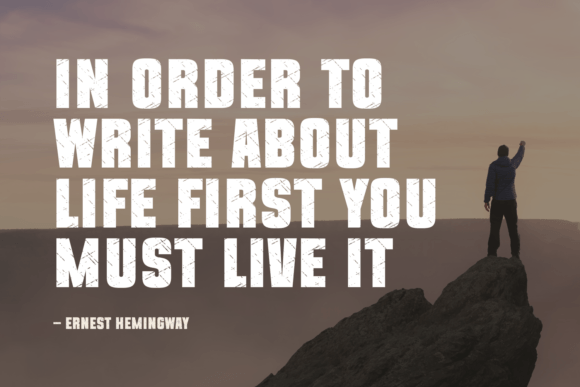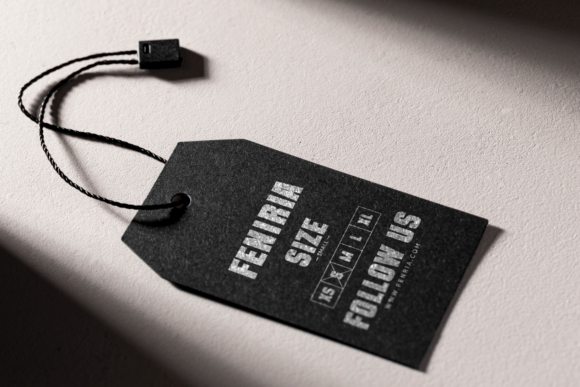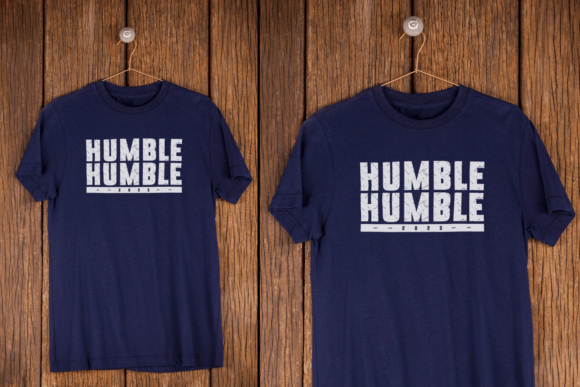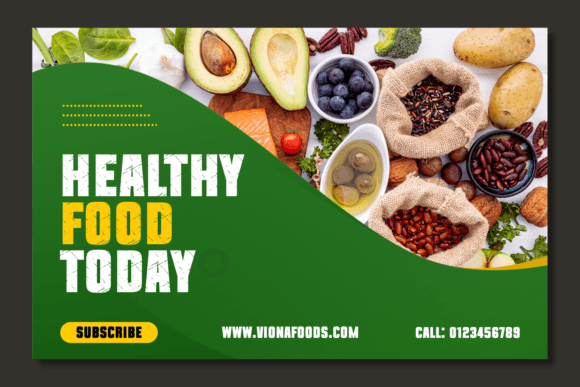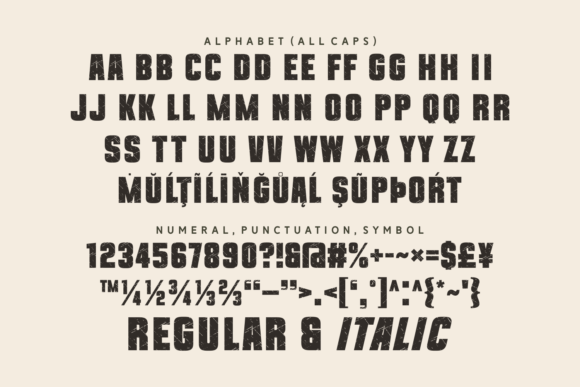
Unlocking Timeless Charm with Better Moods Vintage Font
Have you ever stumbled upon an old vintage poster or a dusty, forgotten book, only to be instantly captivated by its unique character and timeless charm? For designers, this feeling is a constant source of inspiration, driving us to create pieces that evoke a sense of nostalgia and old-world charm. And that’s exactly where the Better Moods Vintage Font comes in – a bold and vintage-inspired sans serif font that captures the essence of mid-century design.
This beautifully crafted font is not just a design element, but a key to unlocking a world of possibilities for branding, packaging, and editorial design. With its clean lines, geometric shapes, and subtle variations in stroke weight and letter spacing, the Better Moods Vintage Font is the perfect tool for designers looking to create authentic and vintage-inspired designs that stand the test of time.
Better Moods Vintage Font Key Features
- Font Style: A distressed, vintage-inspired font with a unique, hand-crafted look.
- Unique Characteristics: Includes alternate characters, swashes, and ligatures to add a touch of elegance and sophistication to your designs.
Designer Review: Better Moods Vintage Font
Overall, I think the Better Moods Vintage Font is a lovely addition to any project that requires a touch of nostalgia and elegance. ✨ Here are some aspects where it truly shines:
- Unique character set: The font’s distinct letterforms and special characters add a delightful charm to any text.
- Warm and inviting feel: The Better Moods Vintage Font has a soothing quality that’s perfect for creative projects, advertising, or editorial content.
- Highly customizable: With over 700 glyphs and OpenType features, you can fine-tune the font to fit your project’s needs.
- Limited legibility: At smaller font sizes, some characters may become difficult to read, especially for those with vision impairments.
- No true italics: While the font offers various oblique styles, they may not be suitable for all uses, especially in formal or academic contexts.
Overall, I’d say the Better Moods Vintage Font is a great choice for designers who want to add a vintage flair to their projects. With some careful planning and consideration of the font’s limitations, you can create beautiful and effective designs.
Better Moods Vintage Font is ideal for:
- Photography branding and marketing materials
- Vintage-inspired advertising and packaging